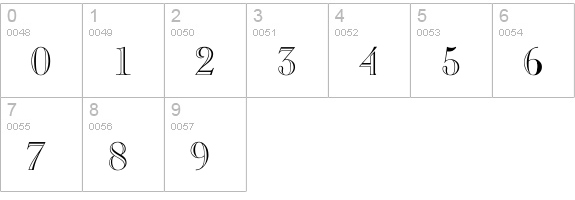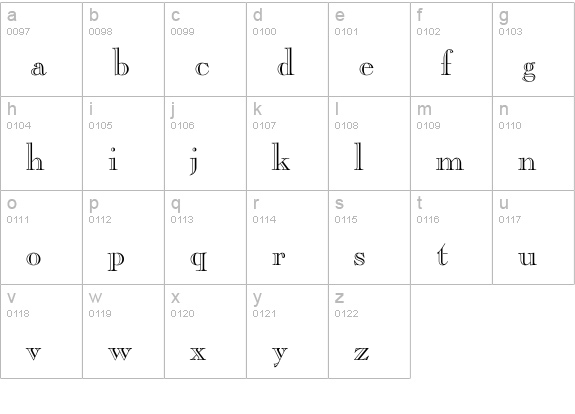
NelsieOpenFace Font Details
NelsieOpenFace font exudes a timeless charm with its elegant and sophisticated design. This versatile typeface features open and airy letterforms that add a touch of modernity to any project while maintaining a classic appeal. The unique combination of sharp angles and graceful curves gives NelsieOpenFace a distinctive look that is perfect for a wide range of applications. What sets NelsieOpenFace apart is not just its aesthetic appeal, but also its accessibility. This font is freely available to download at FontsMarket.com, making it easy for designers and creatives to incorporate its beauty into their work without any restrictions. Whether you're working on a branding project, editorial design, or any other creative endeavor, NelsieOpenFace offers a sophisticated and polished touch that will elevate your designs to new heights. Embrace the elegance and versatility of NelsieOpenFace font today and bring a touch of timeless sophistication to your projects. Download it for free at FontsMarket.com and unleash your creativity with this stunning typeface.